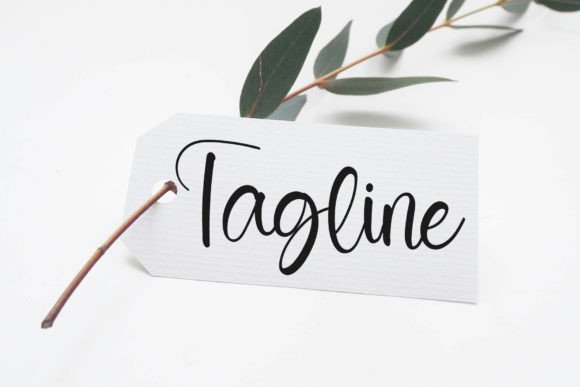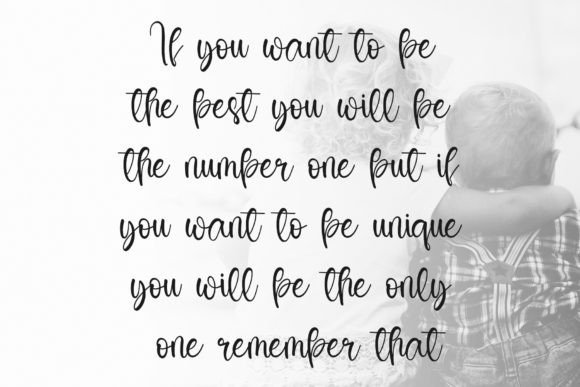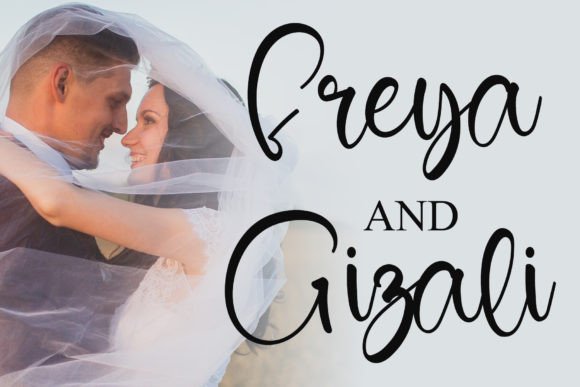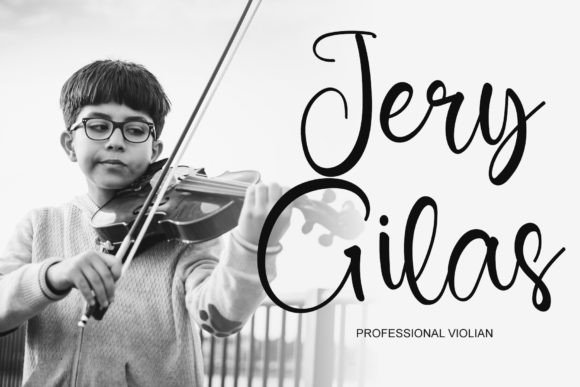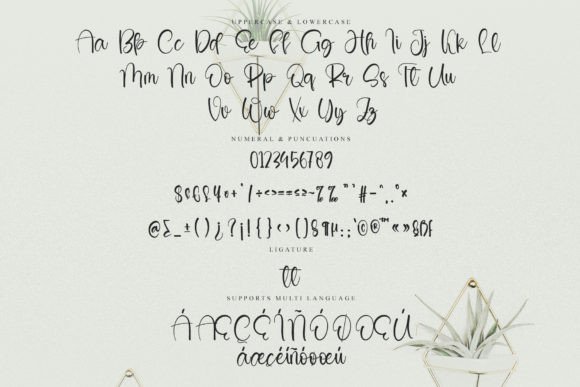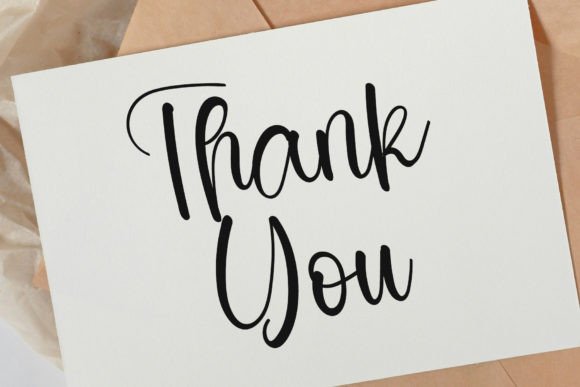
The Magic of the Holiday Season in Type
As I sat at my desk, surrounded by twinkling lights and the faint scent of pine, I began to brainstorm ideas for a holiday greeting card. I wanted something that captured the whimsy and enchantment of the season, something that would make the recipient feel like they were stepping into a winter wonderland. That’s when I remembered After Font – a festive and merry typeface that embodies the very essence of the holiday season.
With its delicate decorations and playful flair, After Font is the perfect companion for any holiday-themed project. Whether you’re designing greeting cards, gift tags, or even a festive website, this font adds a touch of cheer and nostalgia to your words. As a designer, you know how valuable it is to have the right tools at your disposal – and After Font is one of those special finds that can elevate your work and bring joy to your clients.
Key Features of “After Font”
- Character Count: The font includes a comprehensive set of characters, including uppercase and lowercase letters, numbers, punctuation, and special characters.
- Unique Characteristics: The font features a distinctive, modern design with a blend of geometric and organic elements, making it perfect for creative and artistic projects.
Designer Review: After Font
Overall, I was quite impressed with the After Font, but as with any design element, it has its strengths and weaknesses. Here’s my honest review:
- Unique and Creative Design: The After Font has a distinctive, artistic flair that sets it apart from more traditional fonts.
- Good for Headlines and Titles: Its bold, eye-catching style makes it perfect for headings, titles, and other prominent text elements.
- Wide Range of Applications: After Font is versatile and can be used in various contexts, from branding and marketing to editorial and creative projects.
- Difficult to Read at Small Sizes: While the font is stunning at larger sizes, it can become difficult to read at smaller sizes, which may limit its use in body text.
- Lack of Consistency: Some characters may appear slightly inconsistent or uneven, which could detract from the overall design.
- Not Suitable for Body Text: Due to its bold style and potential readability issues, After Font is not ideal for large blocks of text.
After Font is a visually striking choice for designers looking to add a unique touch to their projects. While it may have some limitations, its creative design and versatility make it a valuable addition to any design toolkit.